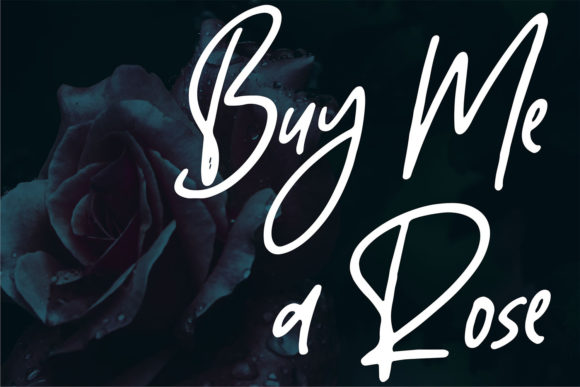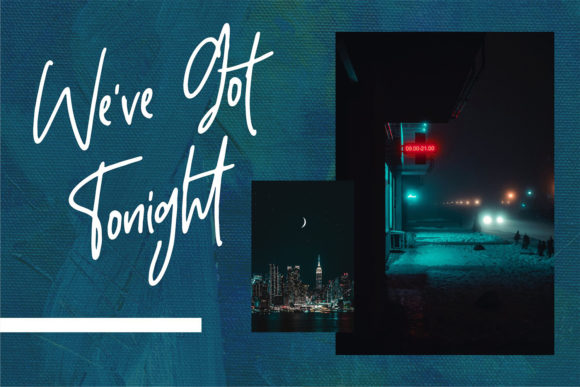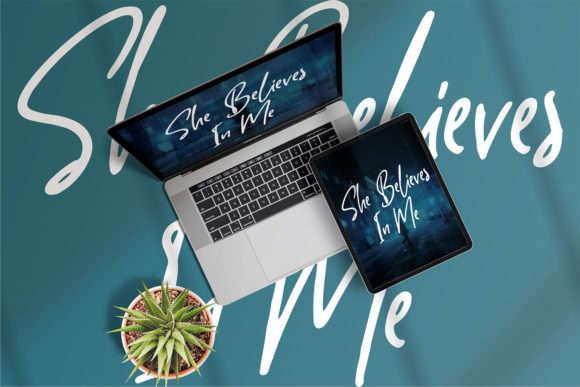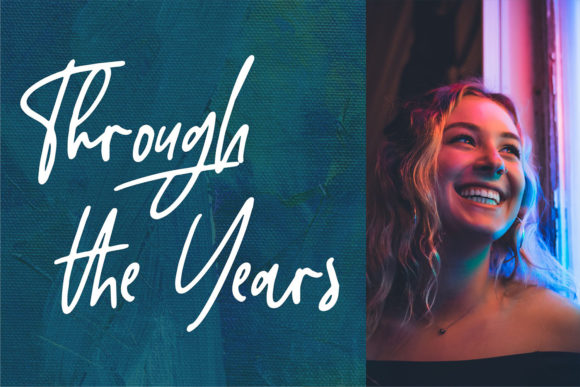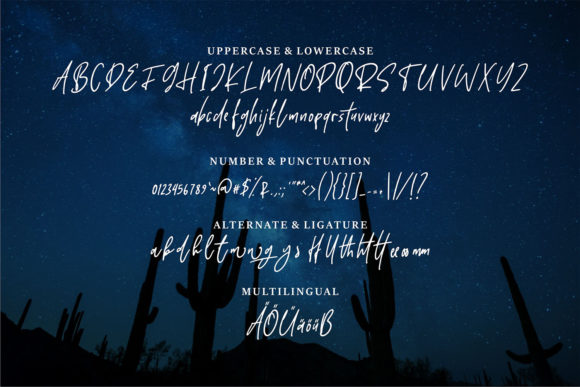
Introduction to Seydou Font
As designers, we’ve all been there – staring at a blank canvas, trying to find that perfect font to bring our creative project to life. And then, like a breath of fresh air, we stumble upon Seydou Font – a laid-back, asymmetrical, and cool handwritten font that instantly captures our attention. With its unique and beautiful touch, Seydou Font is the ultimate design resource for creating eye-catching logos, branding, and quotes.
Imagine having a font that allows you to express your creativity with transparency, giving your design a high-quality feel without the hassle of a transparent background. Seydou Font is more than just a font – it’s a valuable tool for designers who want to make a statement with their work.
Seydou Font
- High-quality font designed for creative projects, offering a unique and stylish look.
- Comes with a transparent background, making it suitable for use on various design resources.
- Features a clean and modern design, ideal for use in various creative projects, including graphic design, digital art, and more.
- Includes a wide range of characters, including uppercase and lowercase letters, numbers, and special symbols.
Honest Review: Seydou Font
I recently came across Seydou Font while searching for a unique design resource for a creative project. I was immediately drawn to its quirky, handwritten feel that adds a touch of personality to any text.
- ✨ Unique, handwritten feel that adds personality to text
- ✨ Versatile font suitable for various contexts
However, I did encounter some limitations with Seydou Font. The font’s style may not be suitable for all projects, and some users may find it difficult to read due to its handwritten nature. Additionally, the font’s free status means that it may not be suitable for commercial use.
Overall, I’m impressed with Seydou Font’s unique style and high quality. While it may not be perfect for every project, it’s definitely a valuable addition to any designer’s toolkit.
Seydou Font
The Seydou Font is a high-quality design resource perfect for creative projects. Its unique style and versatility make it an ideal choice for various applications.
The Seydou Font is perfect for:
- Creating eye-catching posters and flyers
- Designing social media graphics and advertisements
- Adding a creative touch to presentations and documents